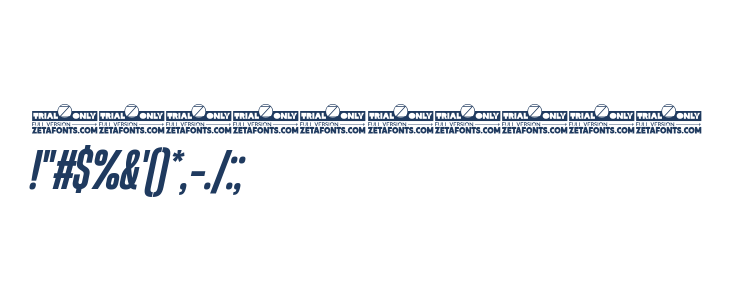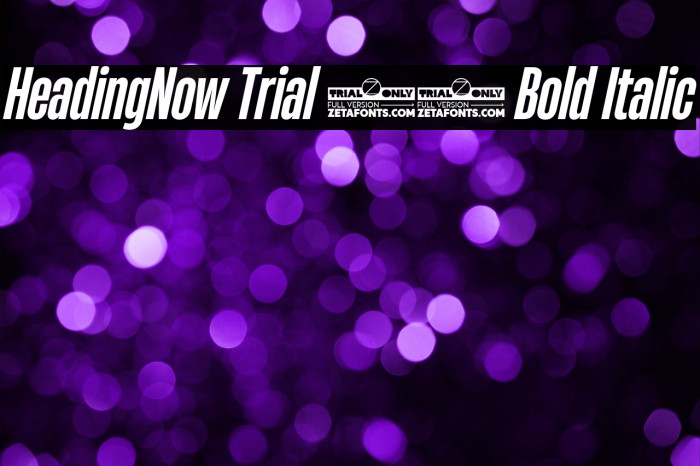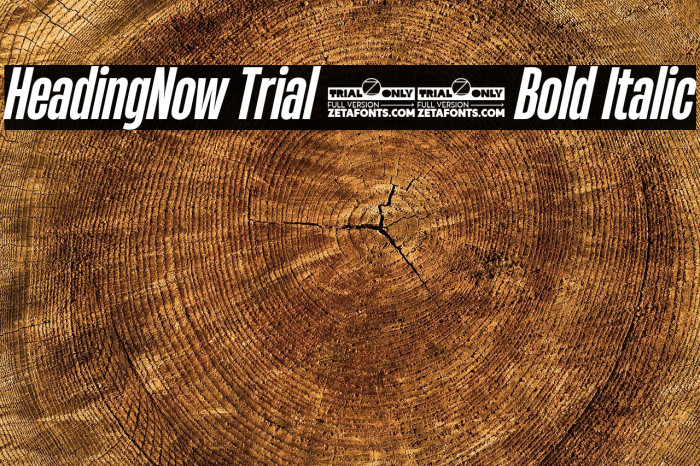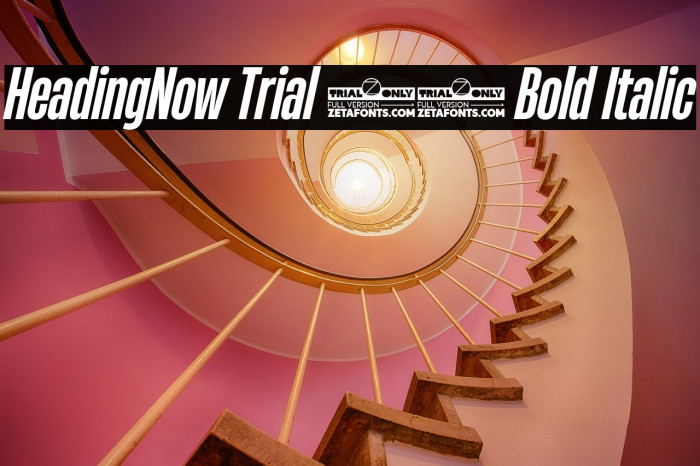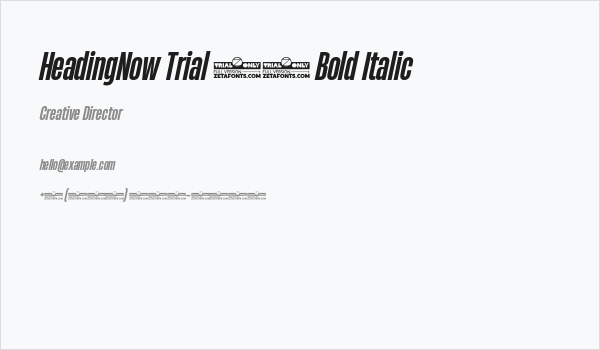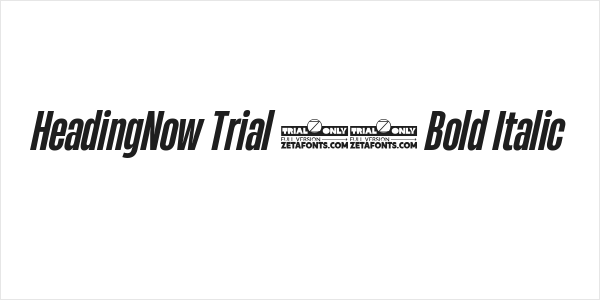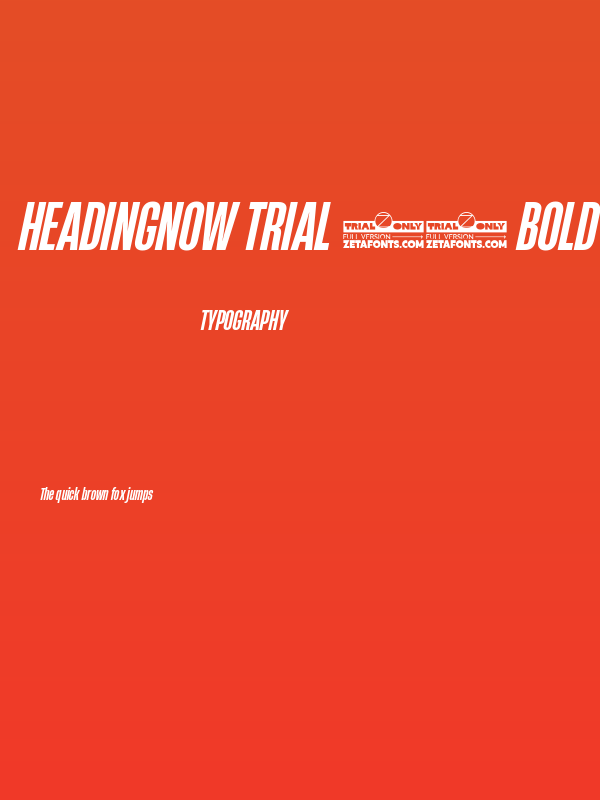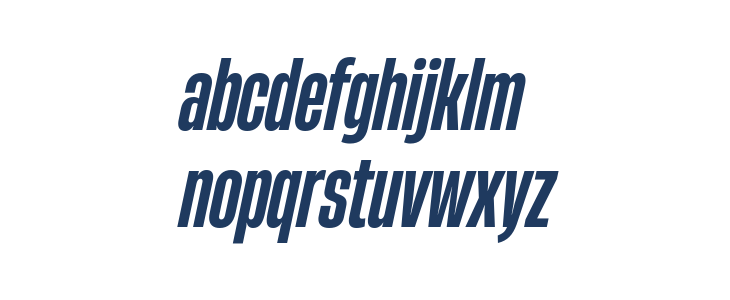
HeadingNow Trial 36 Bold Italic Font
HeadingNow Trial 36 Bold Italic Description
This font features a bold and italicized style, characterized by its strong presence and dynamic slant. The uppercase and lowercase letters are designed with a consistent width, providing a uniform appearance. The font exhibits a modern aesthetic with clean lines and a slightly condensed form, making it suitable for impactful headlines and attention-grabbing text. The numerals and special characters maintain the same bold and italicized characteristics, ensuring cohesion across all glyphs. The overall design is sleek and contemporary, ideal for projects that require a bold statement.
| Proposed Projects | Ideal for headlines, posters, branding, and advertising materials. |